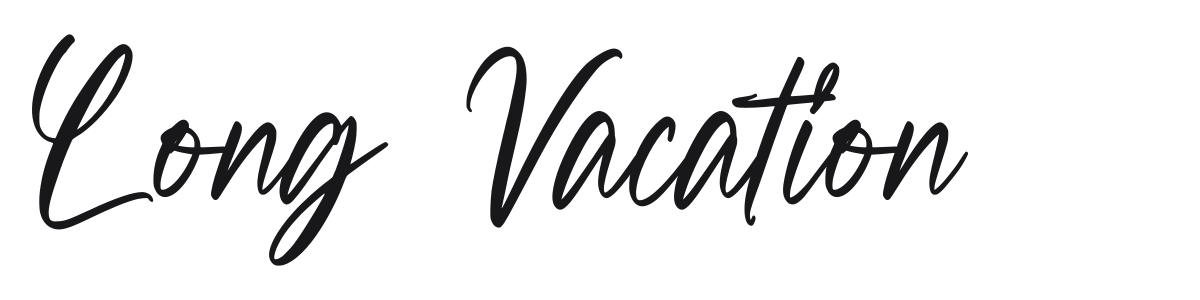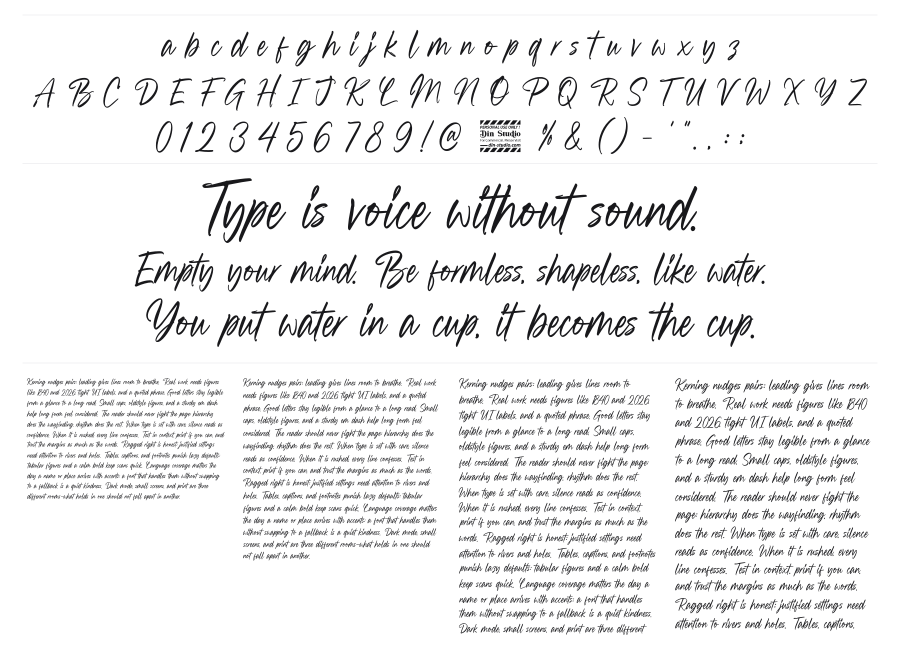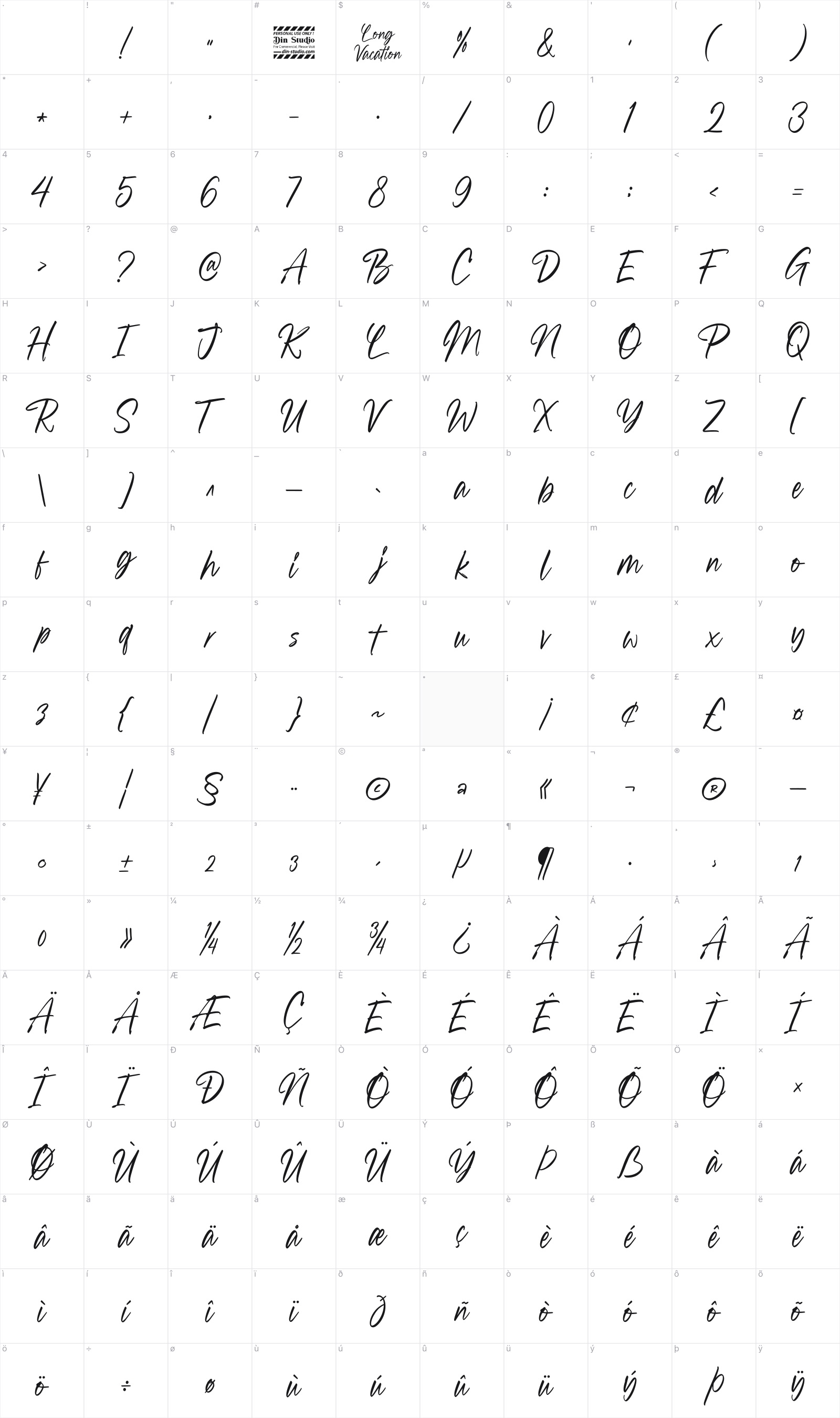
Long Vacation
Long Vacation is a casual connected script with the spontaneous energy of genuine handwriting. Thick-to-thin stroke contrast and scratchy linking strokes between letters give it an inky, natural authenticity that polished calligraphy scripts often lack. It works across branding, social graphics, and editorial headlines where a warm, personal touch matters.